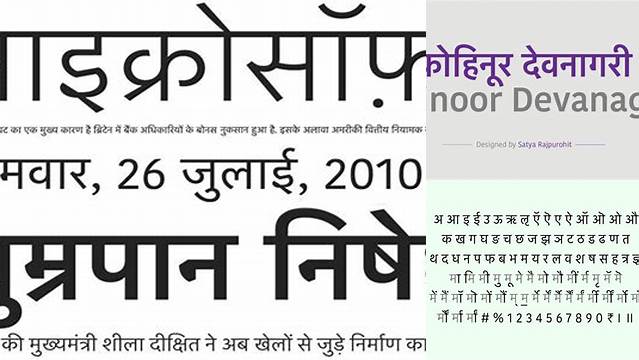
1. What is the Kohinoor Devanagari Font Family?
The Kohinoor Devanagari font family is a versatile and elegant typeface designed specifically for the Devanagari script. It's part of the larger Kohinoor font superfamily, which includes fonts for various other scripts. This family is known for its clean lines, readability, and overall aesthetic appeal. It’s perfect for a wide range of design projects, from print to digital.
The Kohinoor Devanagari font family is more than just a collection of glyphs; it's a carefully crafted tool that brings Devanagari script to life with clarity and grace. The designers behind this font family have paid meticulous attention to detail, ensuring that each character is not only visually pleasing but also highly legible across different mediums and sizes. Whether you're working on a website, a book, or a poster, this font family can add a touch of sophistication and professionalism to your work.
The Kohinoor Devanagari font family stands out because of its balanced proportions and consistent design. This consistency makes it an excellent choice for projects that require a uniform and polished look. Furthermore, the font’s design takes into account the nuances of the Devanagari script, ensuring that it respects the traditional forms while also incorporating modern sensibilities. This makes it a versatile option for both contemporary and traditional design contexts.
2. Key Features of Kohinoor Devanagari
The Kohinoor Devanagari font family boasts several features that make it a favorite among designers. These include its multiple weights, excellent readability, and support for a wide range of characters. The availability of different weights allows for flexibility in design, making it easy to create hierarchy and visual interest. Its clear and legible design ensures that your content is easily readable, while its extensive character set means you can use it for a variety of languages and scripts.
One of the standout features of the Kohinoor Devanagari font family is its adaptability. The range of weights, from light to bold, means you can use this font for headlines, body text, and everything in between. This versatility can significantly streamline your design workflow, as you won't need to switch between multiple fonts to achieve different effects. The font’s carefully considered letterforms ensure that each weight maintains its legibility and aesthetic appeal, even at smaller sizes.
Another crucial feature of the Kohinoor Devanagari font family is its comprehensive character support. It includes a vast array of characters, symbols, and ligatures, making it suitable for a wide range of languages that use the Devanagari script. This comprehensive support is particularly important for projects that require multilingual content, as it ensures consistency and accuracy in your typography. The font’s attention to detail in its character set is a testament to the designers' commitment to creating a truly versatile and inclusive typeface.
3. Why Choose Kohinoor Devanagari Font?
Why should you choose the Kohinoor Devanagari font family? There are many reasons! It’s a professionally designed font that offers a blend of elegance and functionality. It enhances readability, making it perfect for body text, and its aesthetic appeal makes it suitable for headlines and display text as well. Plus, its availability for free download makes it an accessible option for designers on a budget.
The Kohinoor Devanagari font family is an excellent choice because it strikes a perfect balance between form and function. Its elegant design adds a touch of sophistication to any project, while its focus on readability ensures that your message is communicated effectively. This balance is particularly important in today’s design landscape, where aesthetics and usability are equally valued. The font's clean lines and balanced proportions make it a pleasure to read, whether on screen or in print.
Another compelling reason to choose the Kohinoor Devanagari font family is its professional quality. This font family has been meticulously crafted by experienced designers, ensuring that every aspect of its design meets the highest standards. This professional touch is evident in the font’s refined letterforms, consistent spacing, and overall polish. Using a professionally designed font like Kohinoor Devanagari can significantly elevate the look and feel of your projects, making them appear more credible and polished.
4. Kohinoor Devanagari vs. Other Devanagari Fonts
When comparing the Kohinoor Devanagari font family to other Devanagari fonts, it often stands out due to its modern design and versatility. While some fonts may be more traditional or specialized, Kohinoor Devanagari offers a contemporary feel that works well in a variety of contexts. Its readability and multiple weights also give it an edge over many other options.